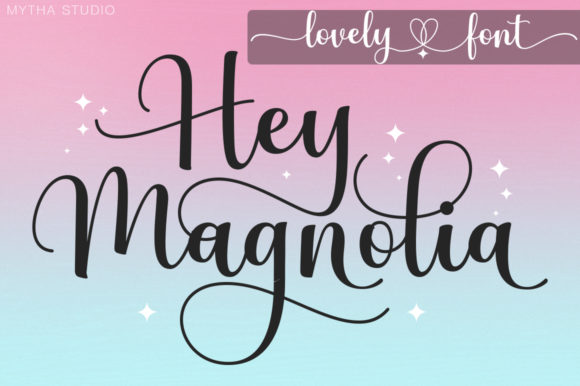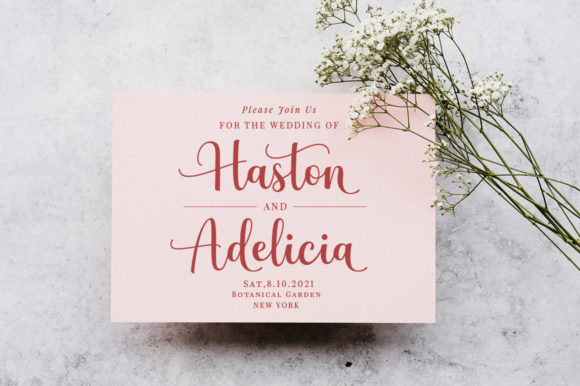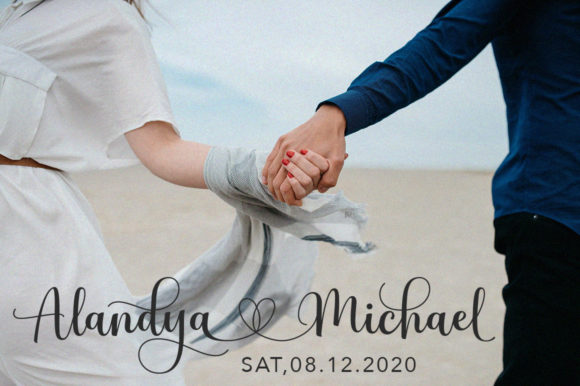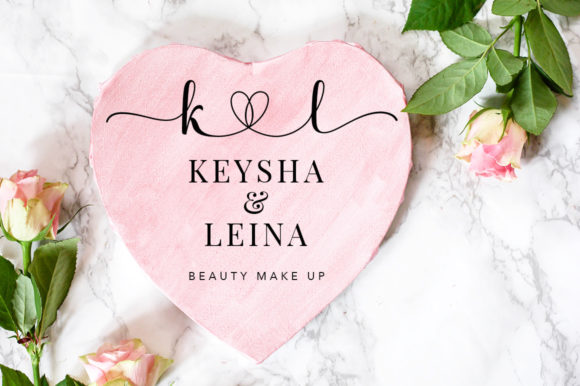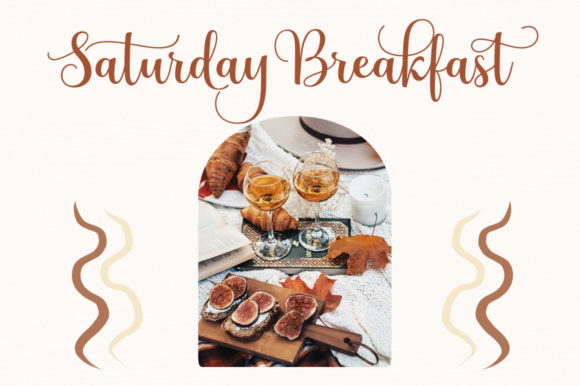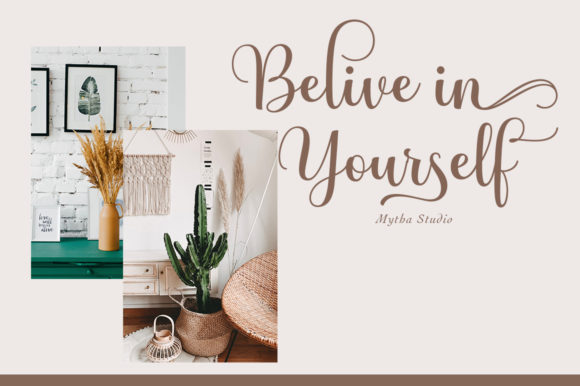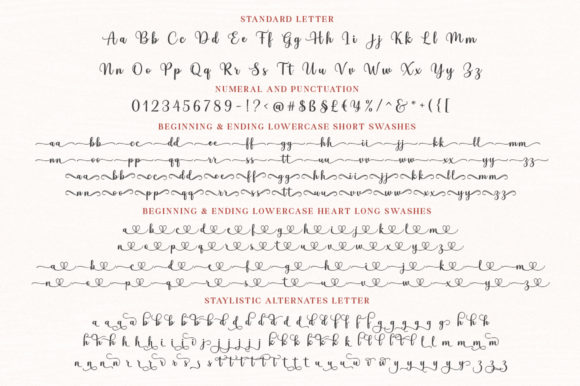
Hey Magnolia Font
Hey Magnolia is an incredibly unique handwritten font. Masterfully designed to become a true favorite, this font has the potential to bring each of your creative ideas to the highest level!